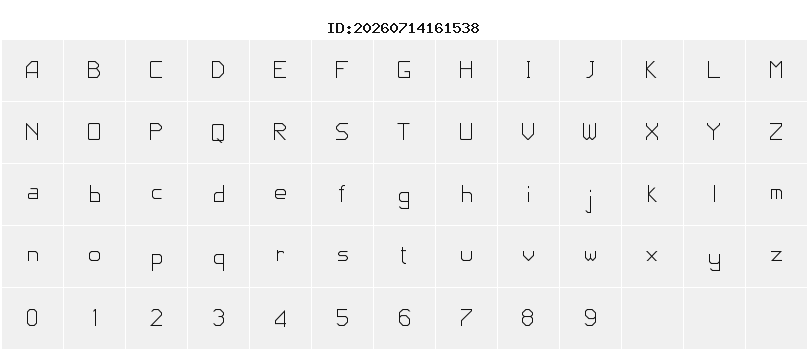
• Font Name: JD Code
• Designer: Jecko Development
• Description: “JD Code” was built with FontStruct
JD Code.ttf is a modern, elegant sans-serif font designed for ultimate readability and visual harmony. Perfect for branding, headlines, web design, and print materials.